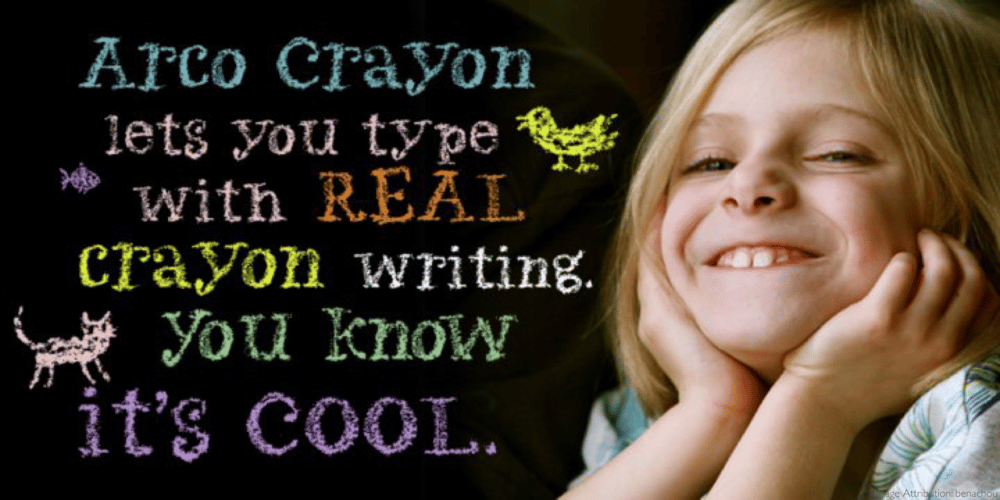
Arco Crayon Font Family was designed by Luke William Turvey and published by Okaycat. Arco Crayon contains 1 styles and family package options. Real crayons were used in the making of this font. Yes, design can be fun again! Need to create the textured look of crayon, chalk, conte, or charcoal? Use Arco Crayon. Arco Crayon is extended, containing West European diacritics & ligatures, making it suitable for multilingual environments & publications.